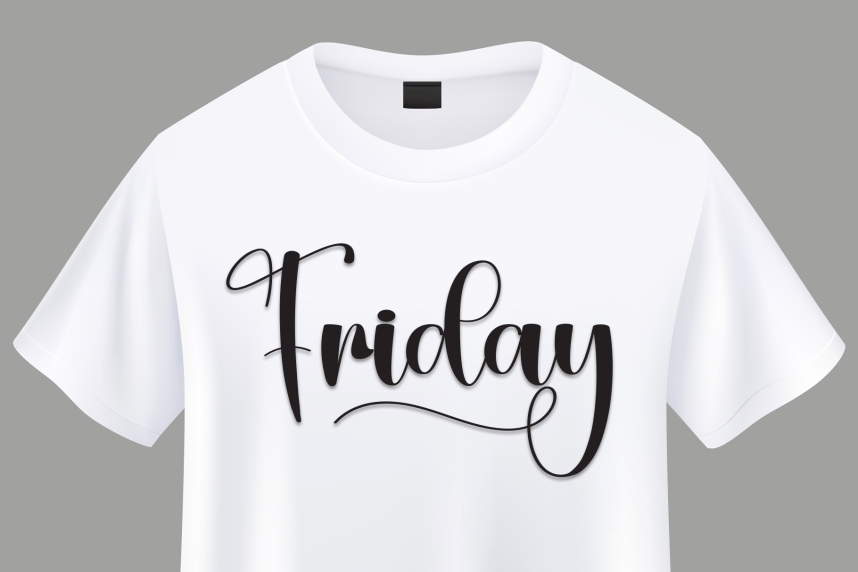
Snowy – Creative Handwritten Font, special creative products for you, our products will give you an extraordinary experience. the latest style letters are perfect for wall displays, wedding invitations, social media post logos, advertisements, product packaging, product designs, labels, photography, watermarks, invitations, stationery, and any project that requires taste handwriting.